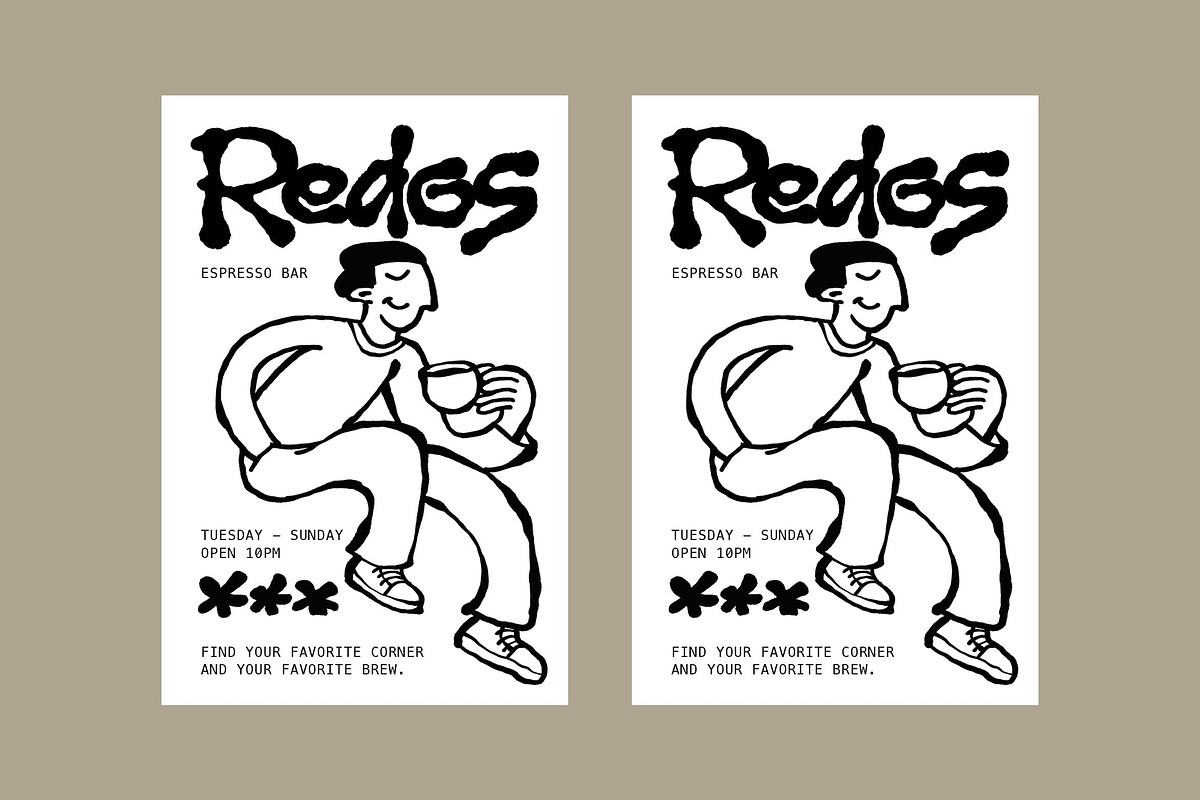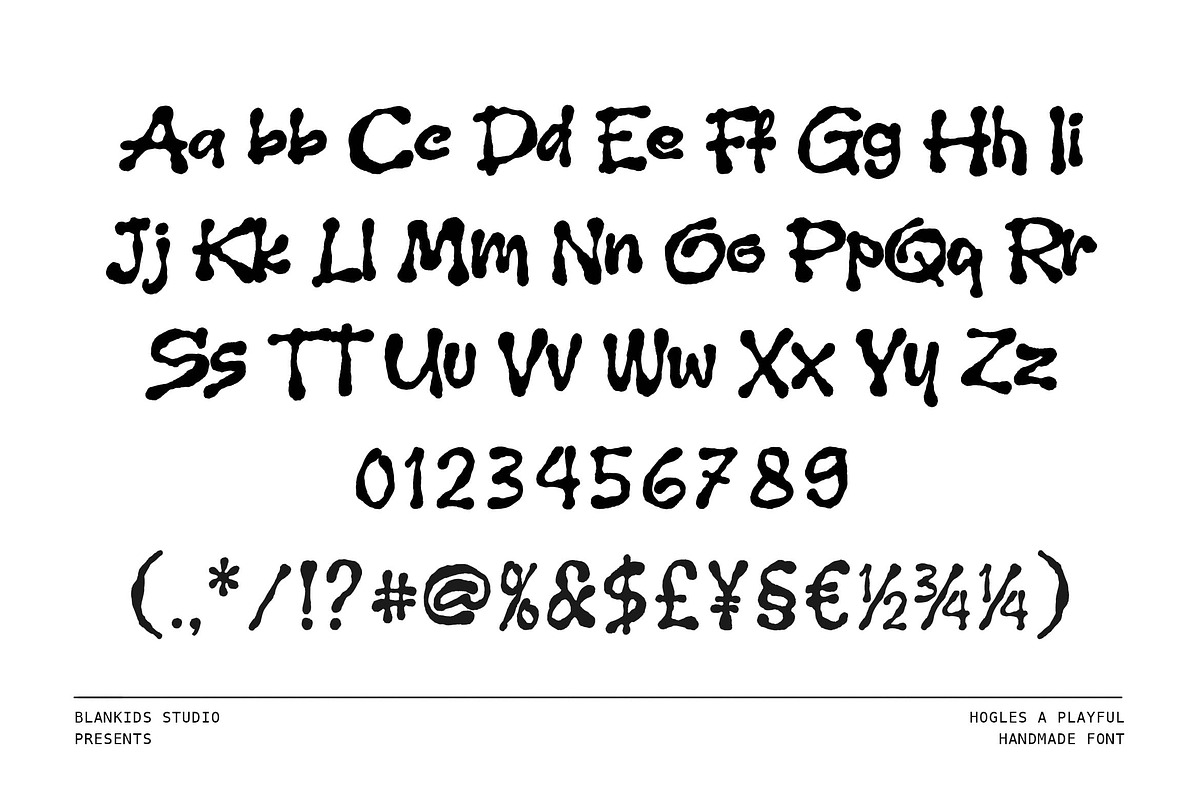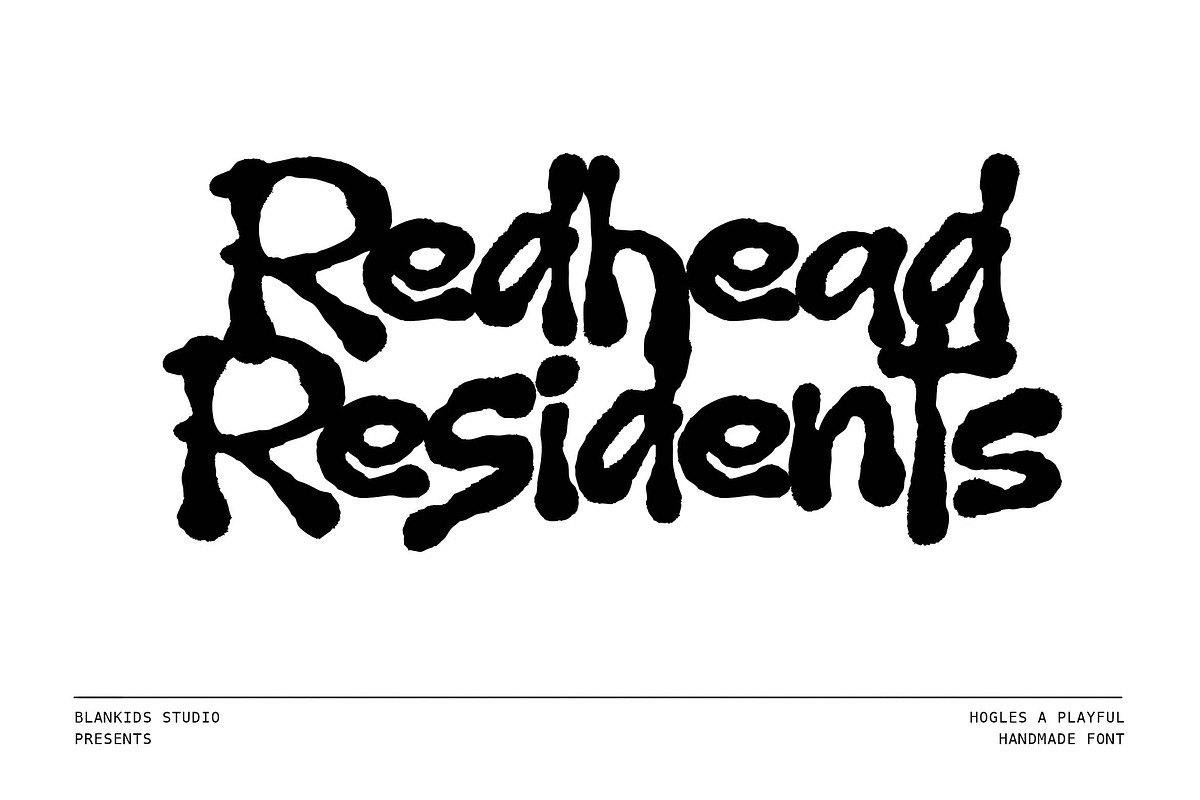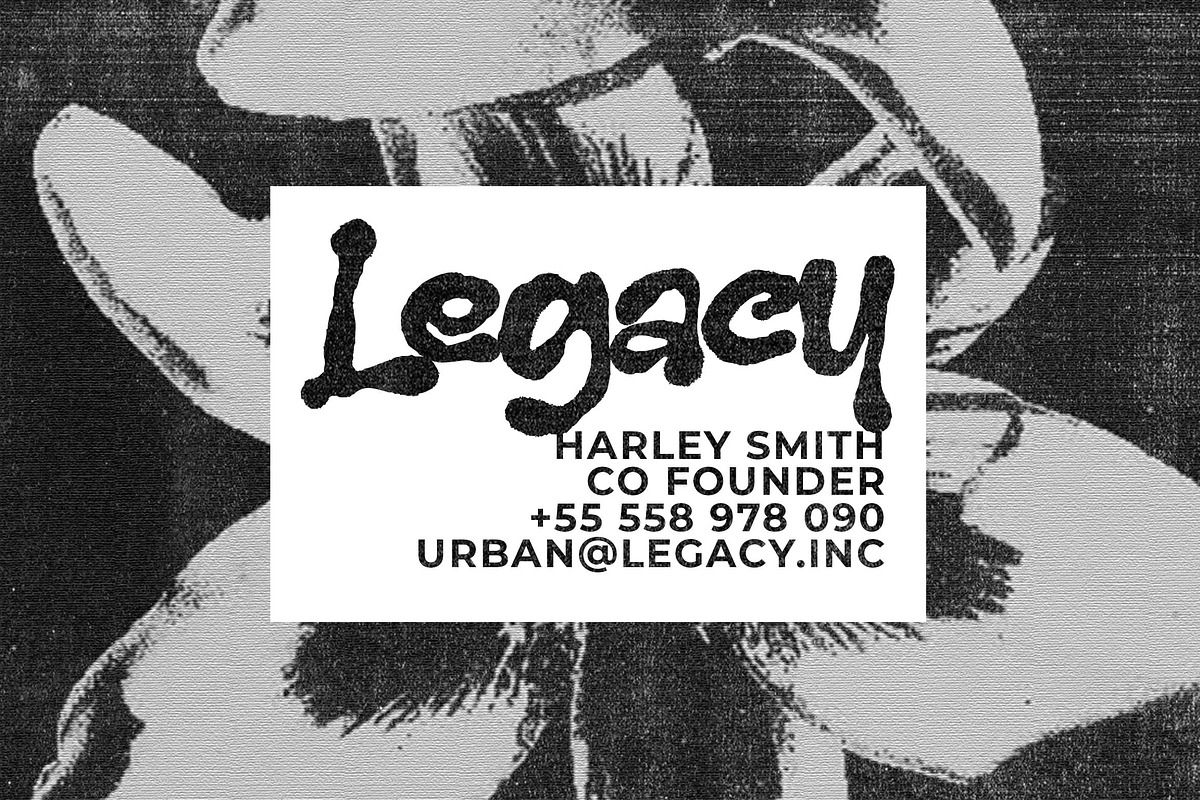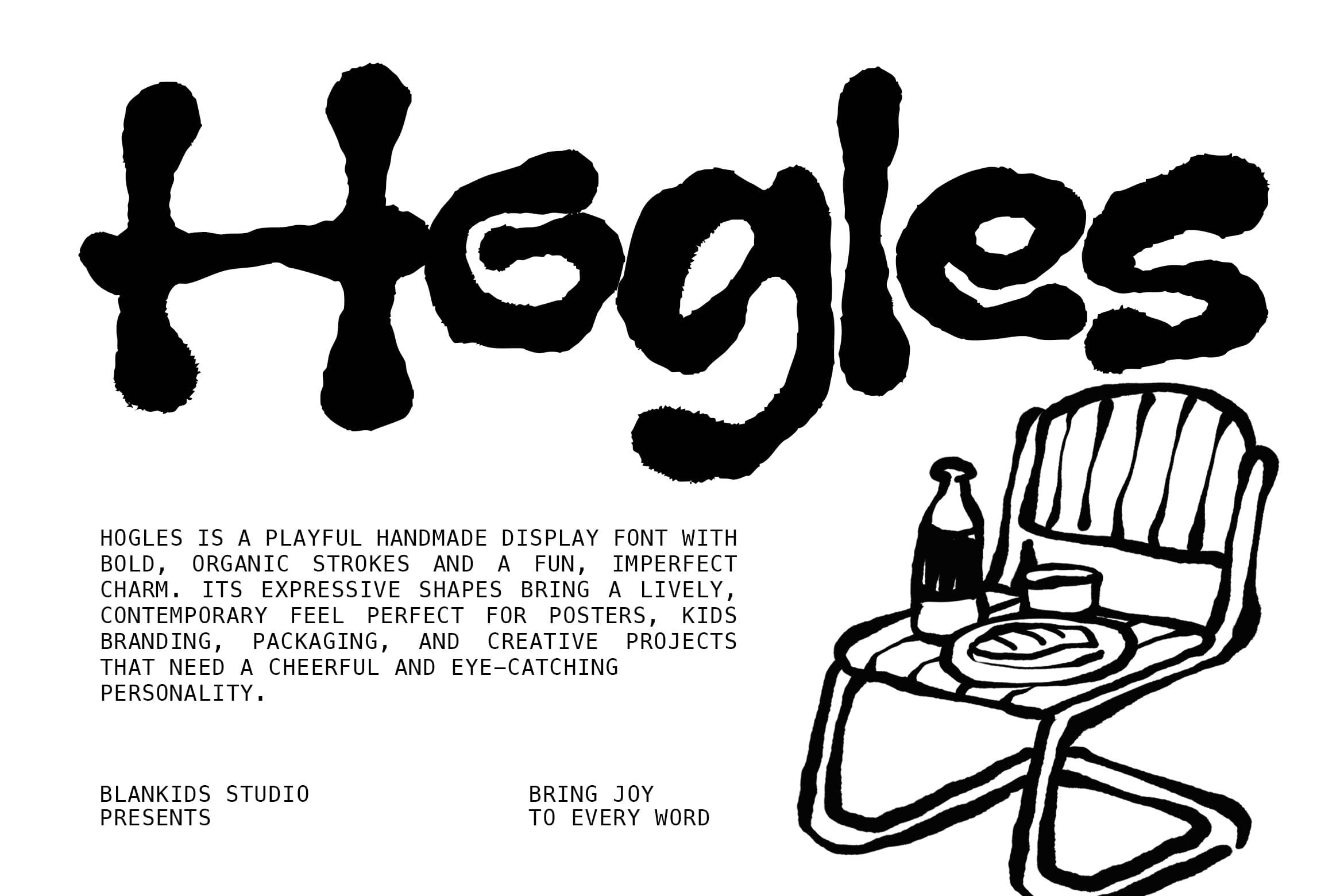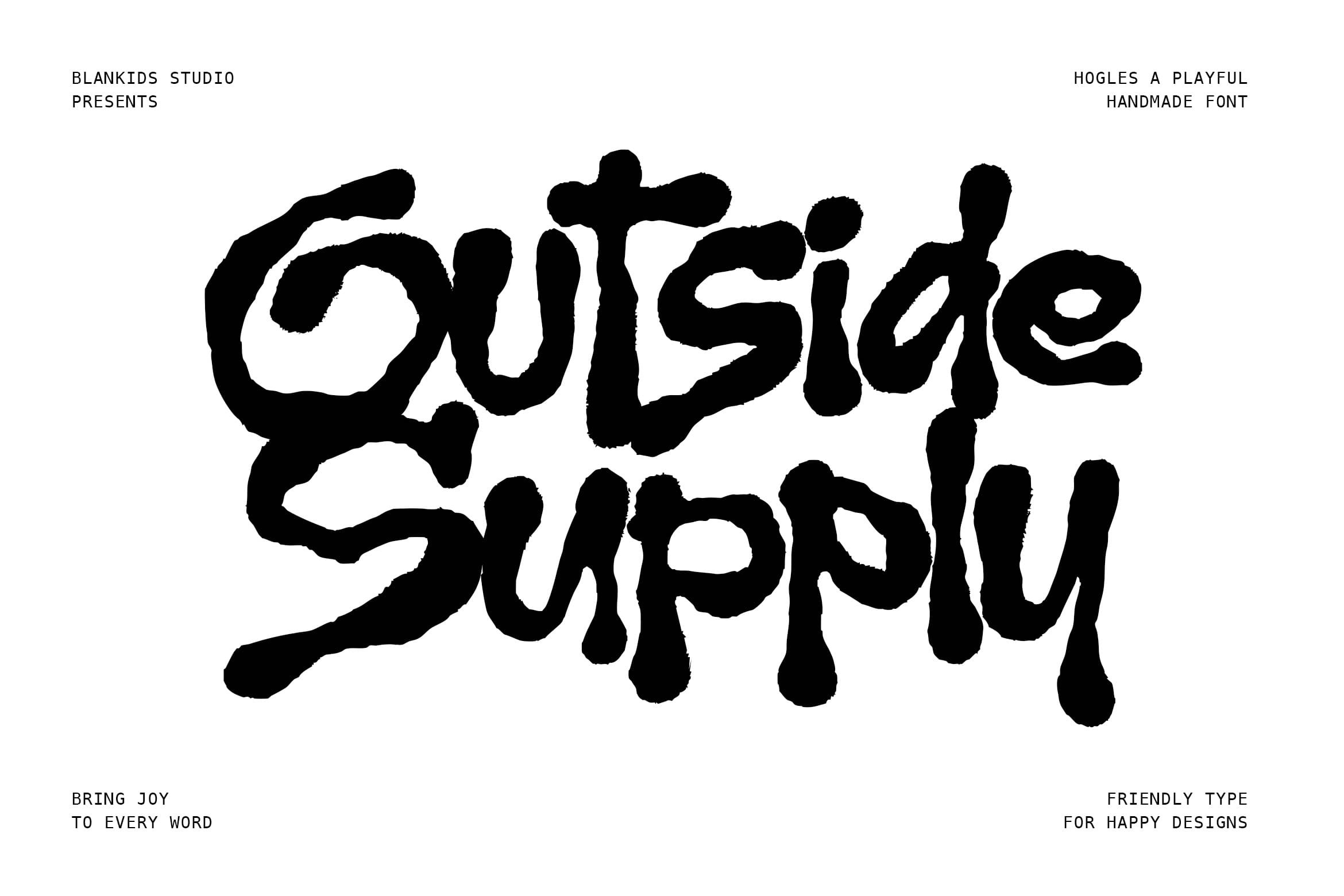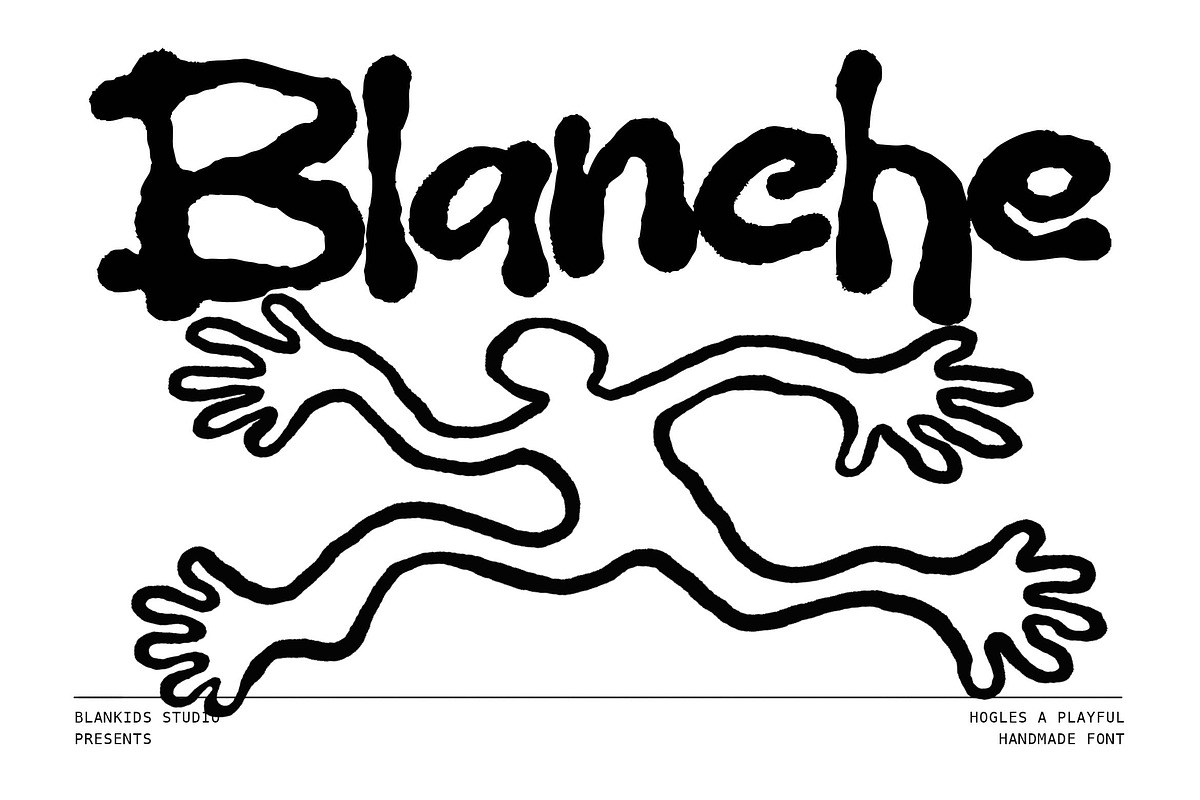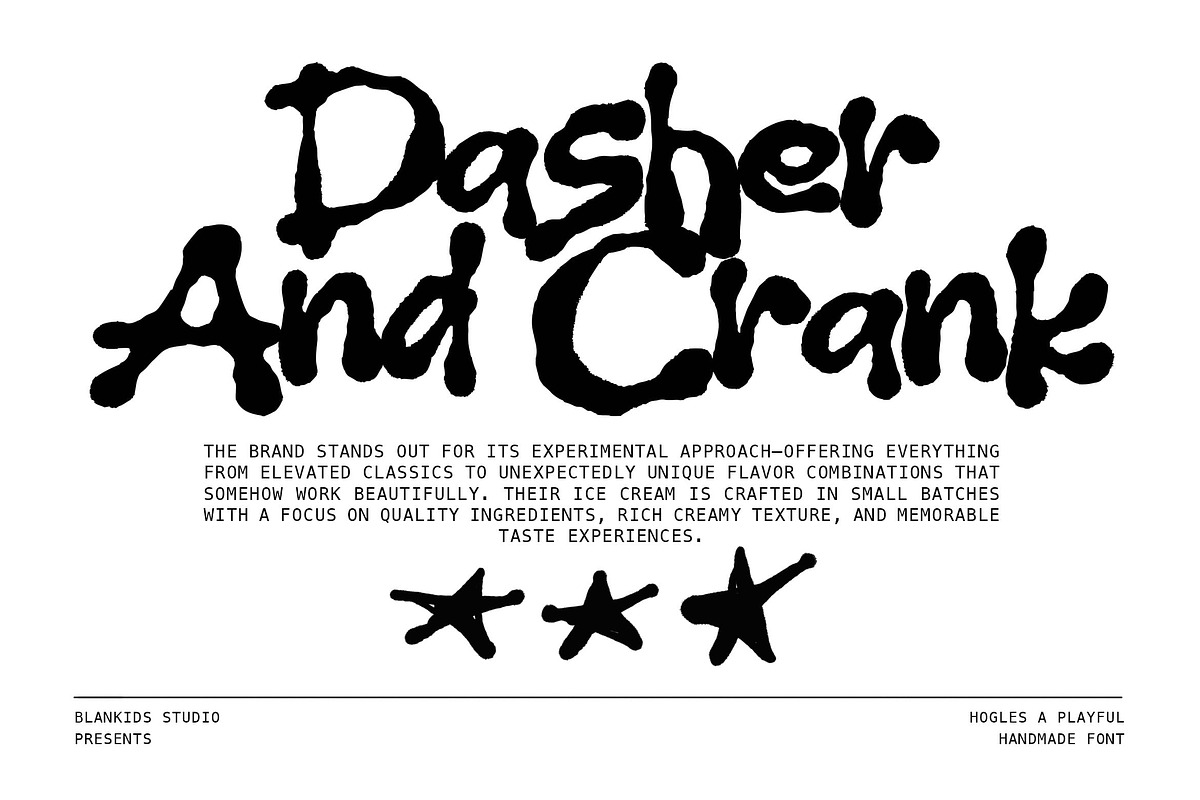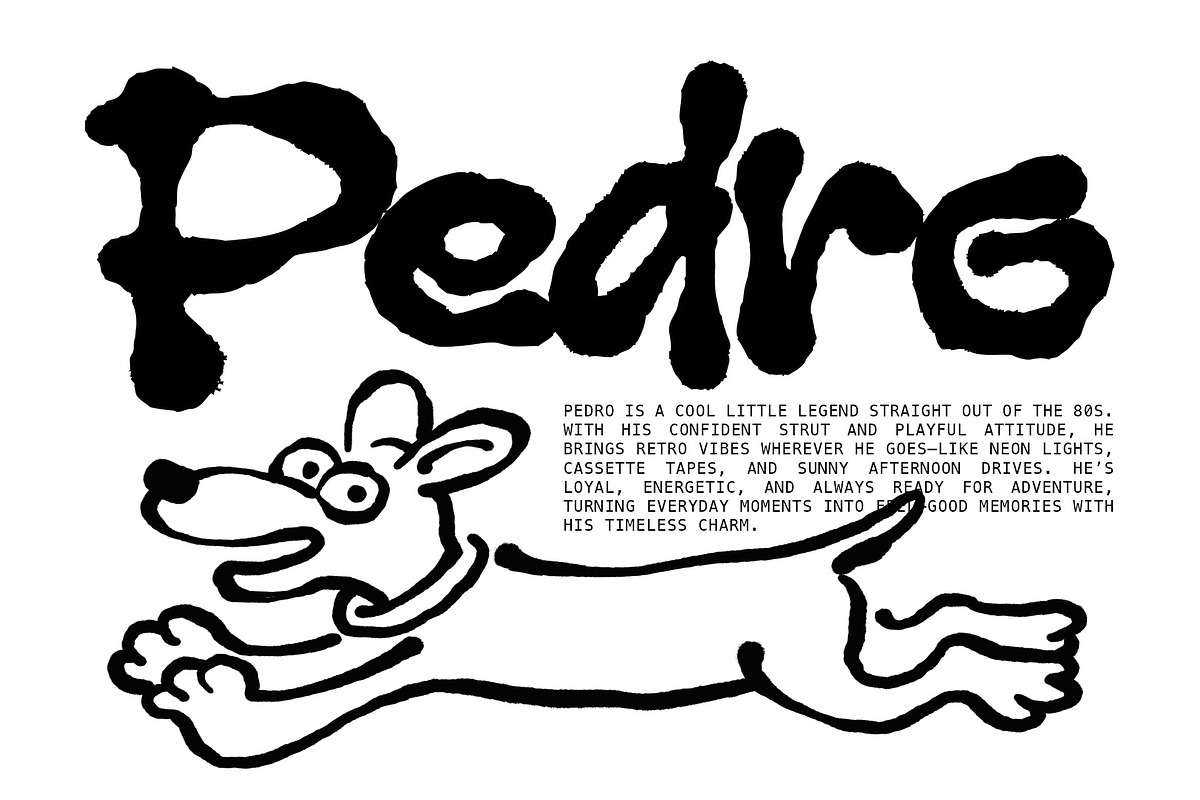
Hogles a Handmade Display Font
Hogles – Playful Handmade Display Font
Hogles is a bold, playful handmade display font designed to bring joy and personality to every word. With its organic strokes, imperfect shapes, and expressive character, Hogles delivers a lively and friendly vibe that instantly grabs attention.
This font captures the charm of hand-drawn lettering, making it perfect for projects that need a fun, cheerful, and eye-catching look. The slightly rough and uneven texture adds authenticity and warmth, helping your designs feel more human and approachable.
Hogles works beautifully for posters, kids branding, packaging, social media graphics, book covers, logos, merchandise, and creative projects that need a strong and playful statement.